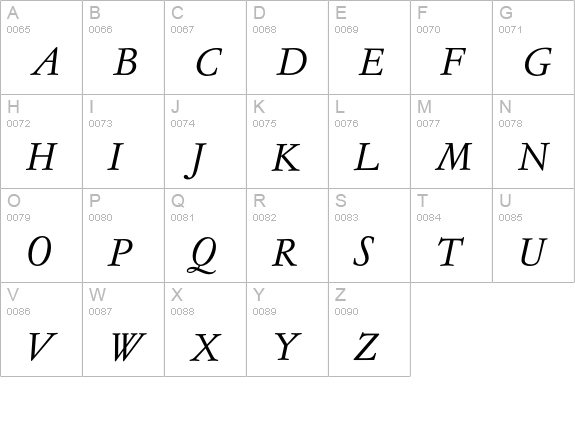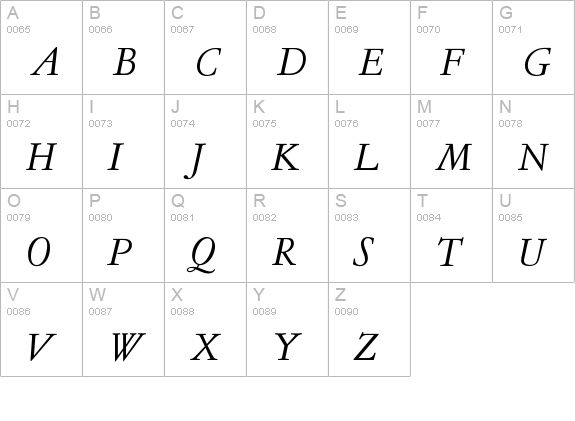
GaramondNo5EF-LightItalic Font Details
GaramondNo5EF-LightItalic font is a timeless and elegant typeface that exudes sophistication and grace. With its slender, italic design, this font adds a touch of finesse to any project or design. The delicate curves and refined lines of GaramondNo5EF-LightItalic create a sense of class and refinement, making it perfect for elegant invitations, sophisticated branding, and stylish editorial layouts. What sets GaramondNo5EF-LightItalic font apart is that it is not only beautiful and versatile but also free to download. Yes, you read that right – this exquisite font is freely available for download at FontsMarket.com. Now you can add a touch of luxury to your projects without breaking the bank. Embrace the beauty and sophistication of GaramondNo5EF-LightItalic font and elevate your designs to new heights.